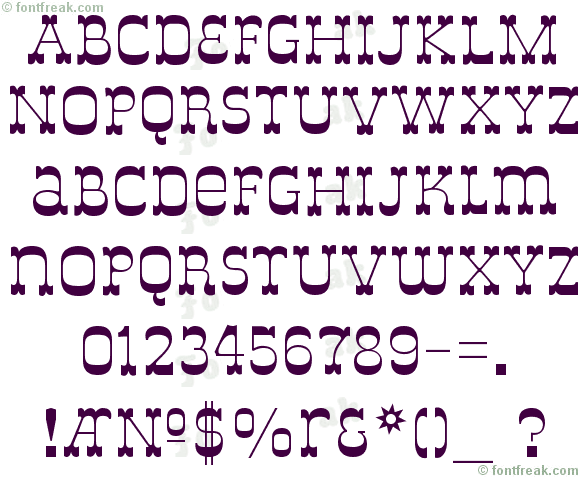
About Delouisville
Delouisville, designed by James Arboghast, is a distinctive display typeface that captures attention with its unique character and flair. This font falls into the decorative category, characterized by its elegant curves and stylish form. The strokes exhibit a medium weight with a balanced contrast that enhances readability while maintaining a visually appealing aesthetic. Delouisville features generous spacing between letters, allowing for a clean and sophisticated look that makes it suitable for various design applications. The font's stylish embellishments add a touch of sophistication, making it an ideal choice for creative projects.
The best use cases for the Delouisville font include wedding invitations, where its elegance can convey romance and charm. It also shines in restaurant menus, providing a warm and inviting feel that enhances the dining experience. Movie posters can benefit from its bold presence, helping to communicate the film's theme or genre effectively. Additionally, this font is perfect for branding materials, allowing small business owners to establish a unique identity that resonates with their target audience. Content creators will find it an excellent choice for social media graphics, where eye-catching visuals are paramount.
The target audience for Delouisville includes graphic designers looking for a unique typeface to elevate their projects, small business owners aiming to create memorable branding, and content creators seeking to enhance their visual communication.
What sets Delouisville apart is its perfect blend of style and versatility. This font allows for creative expression while remaining practical for a variety of uses. With its freeware license, designers can enjoy the Delouisville font free download, making it accessible for personal and non-profit projects. Its unique design not only stands out but also invites creativity, making it a valuable addition to any typographic collection.